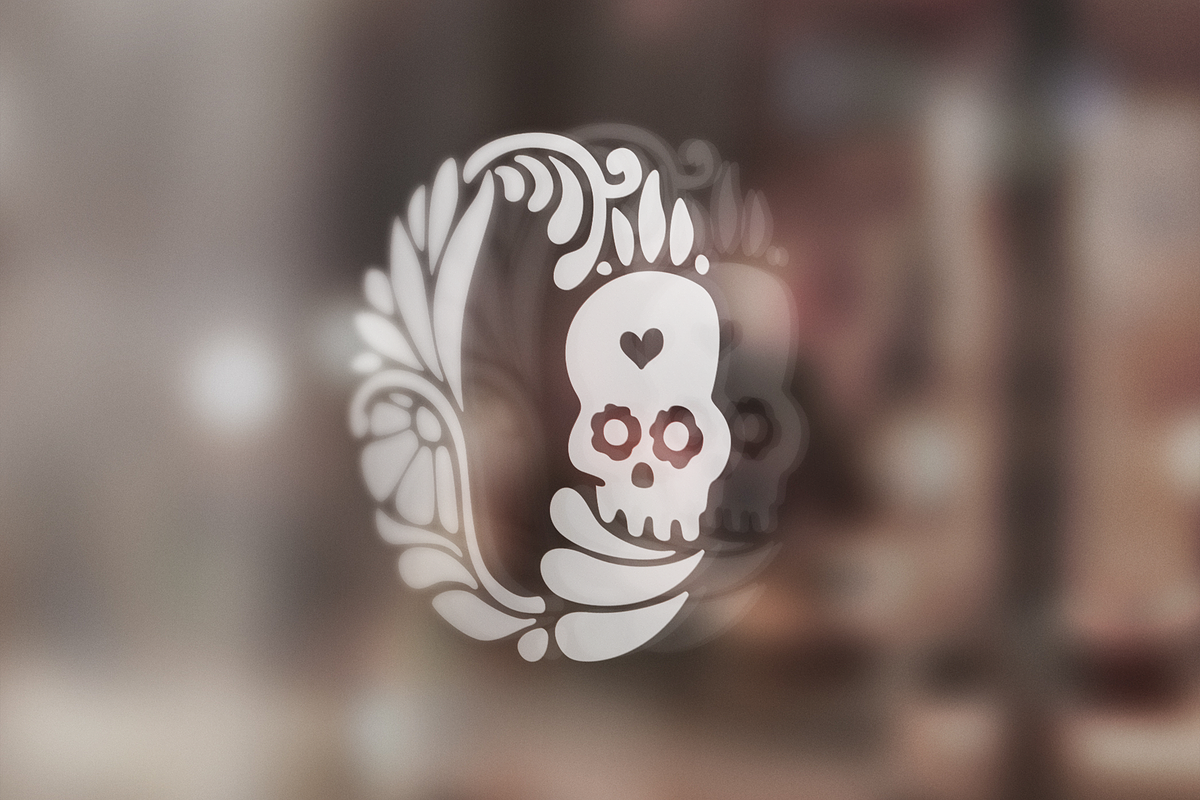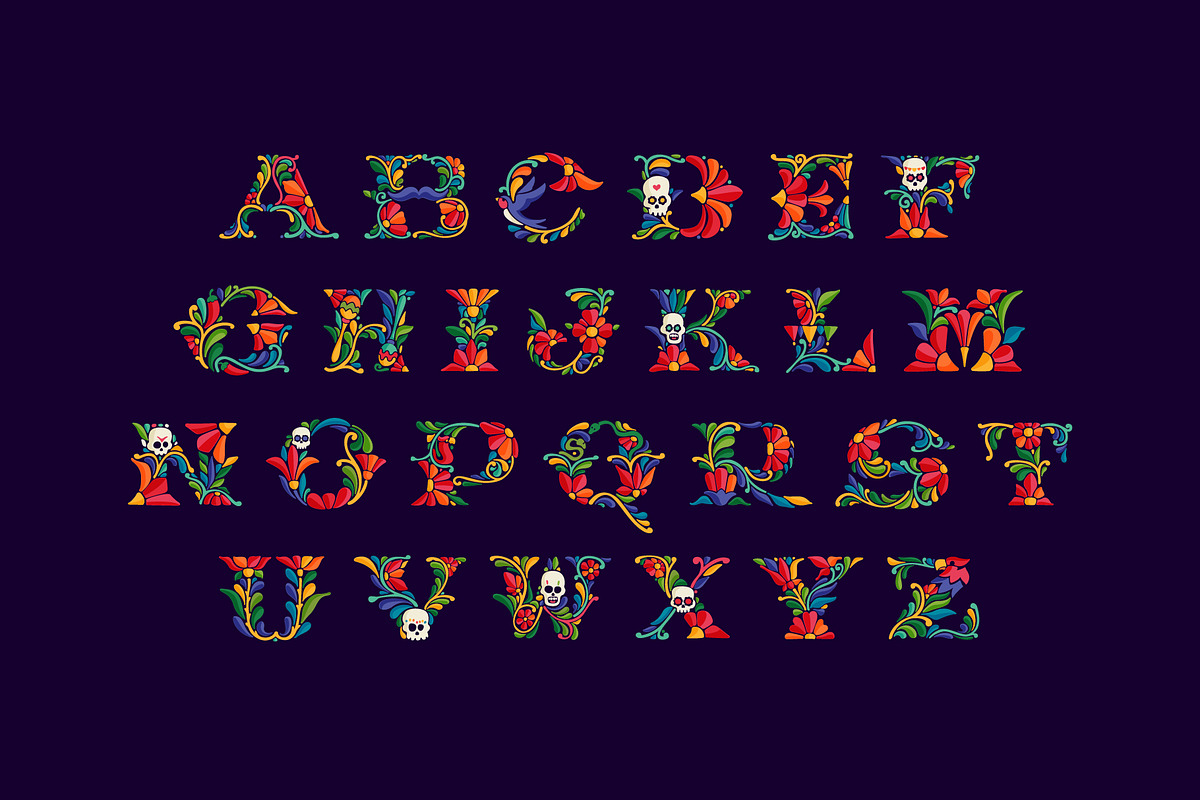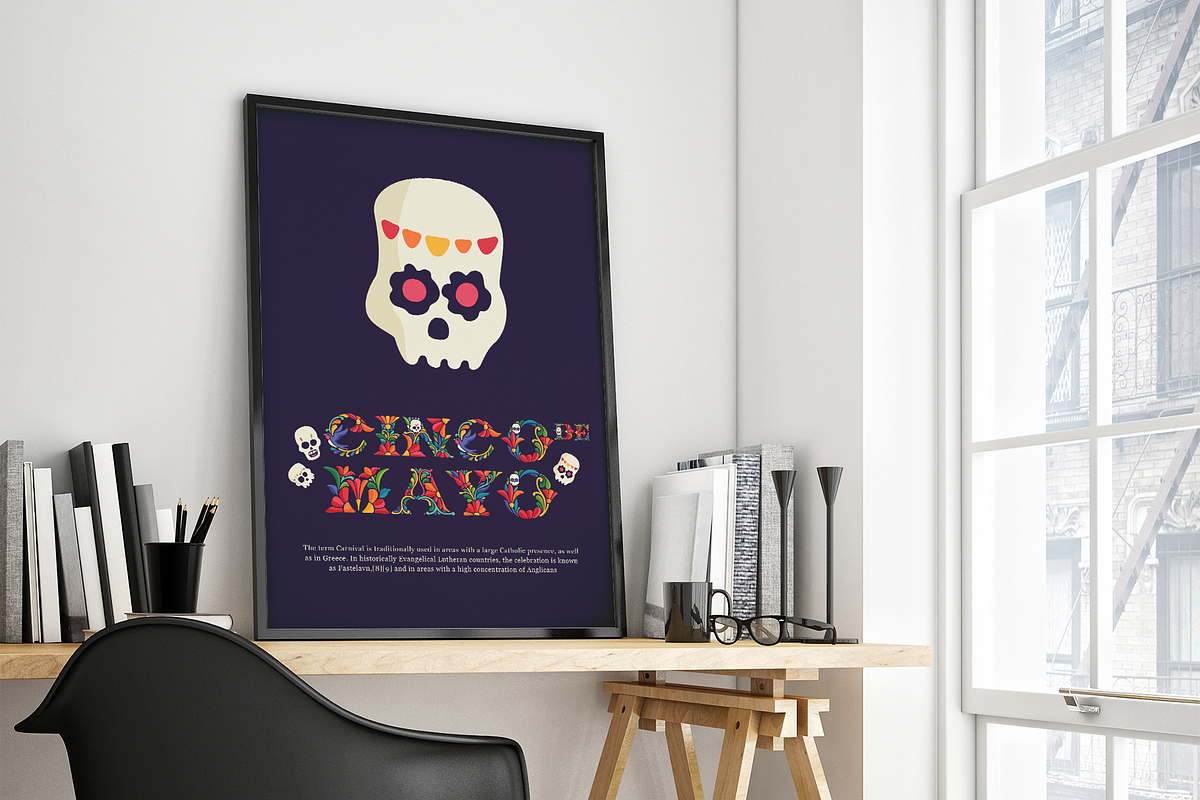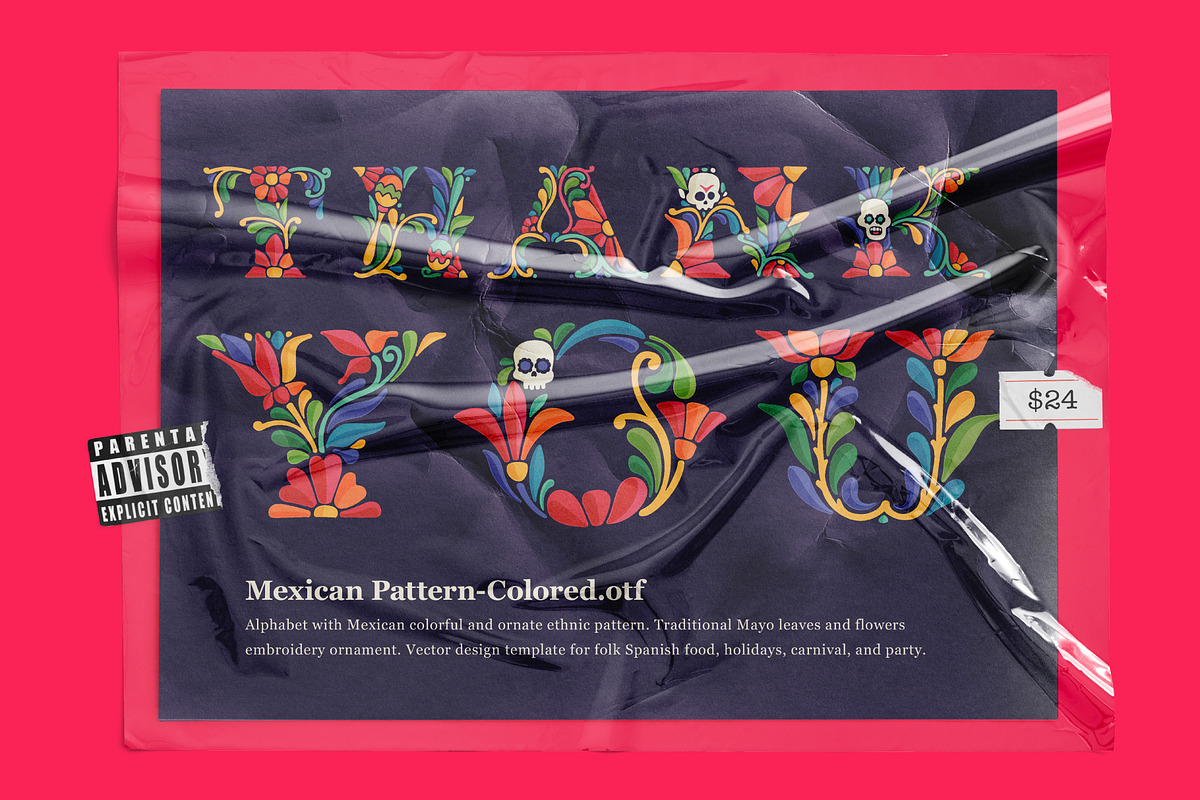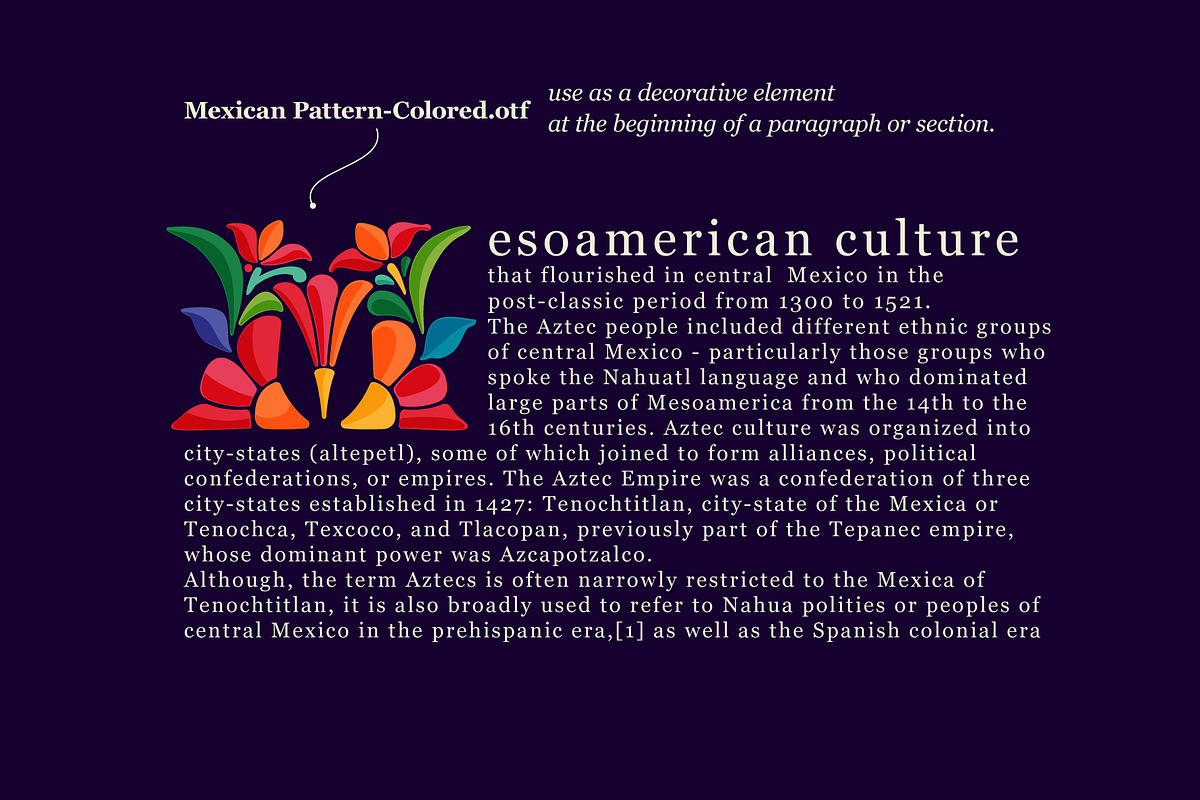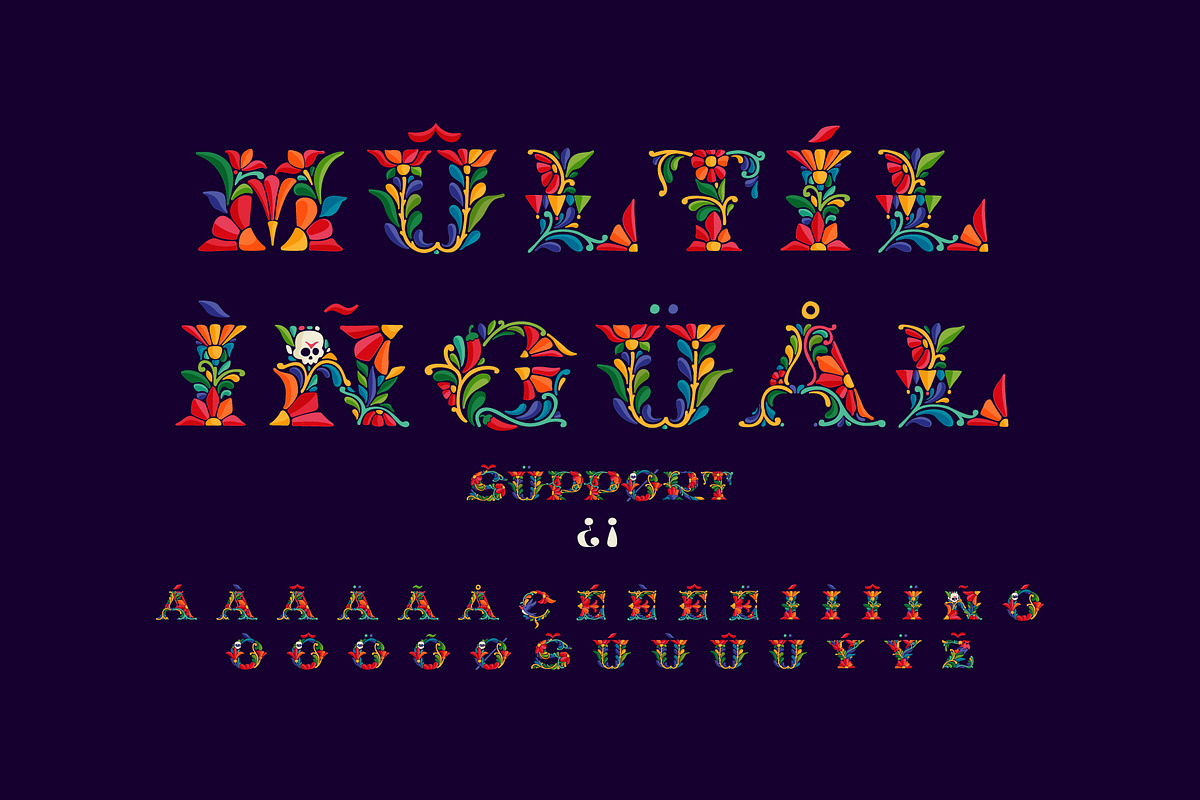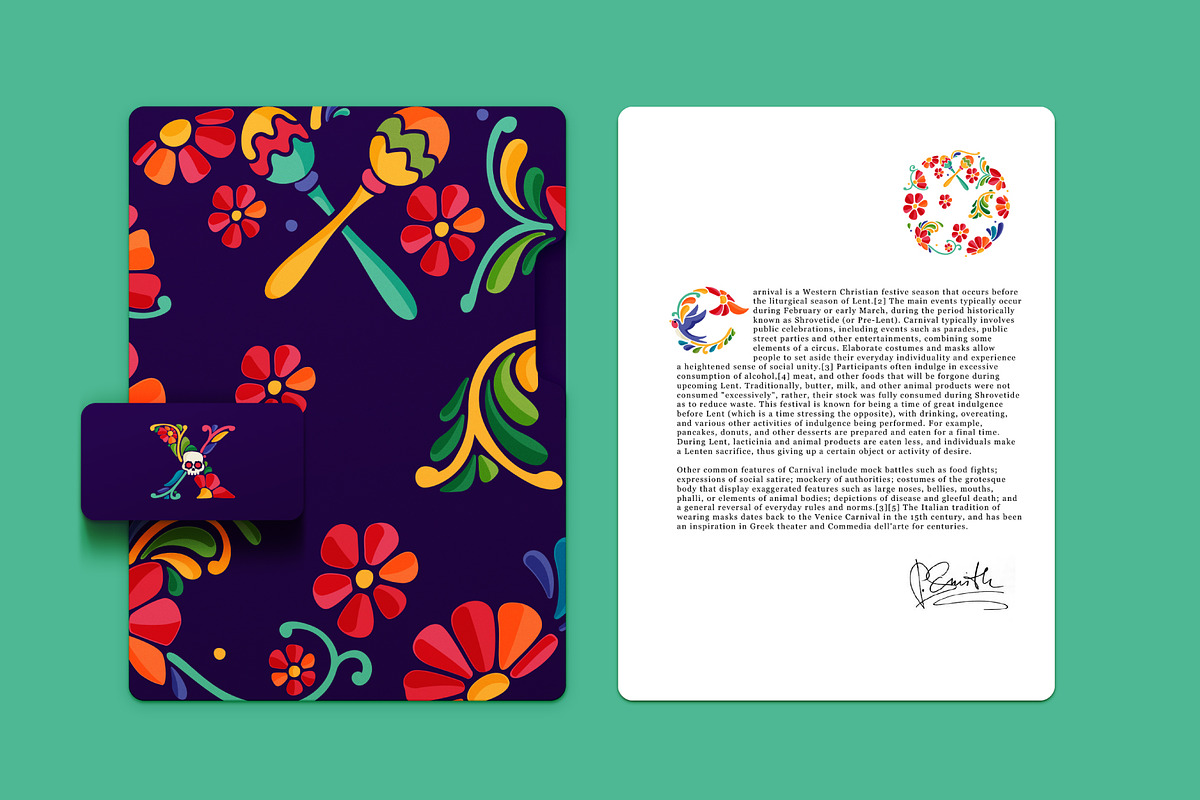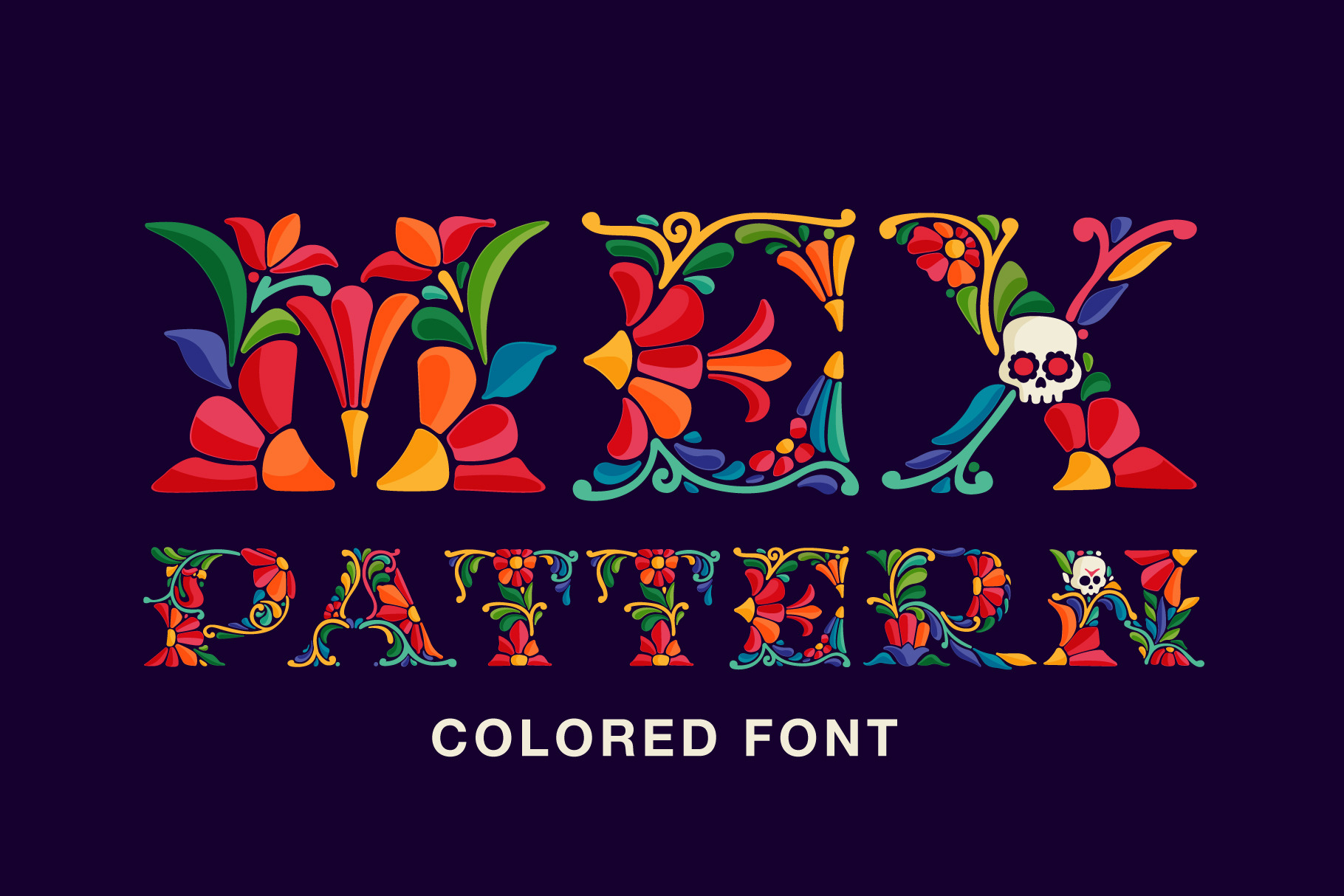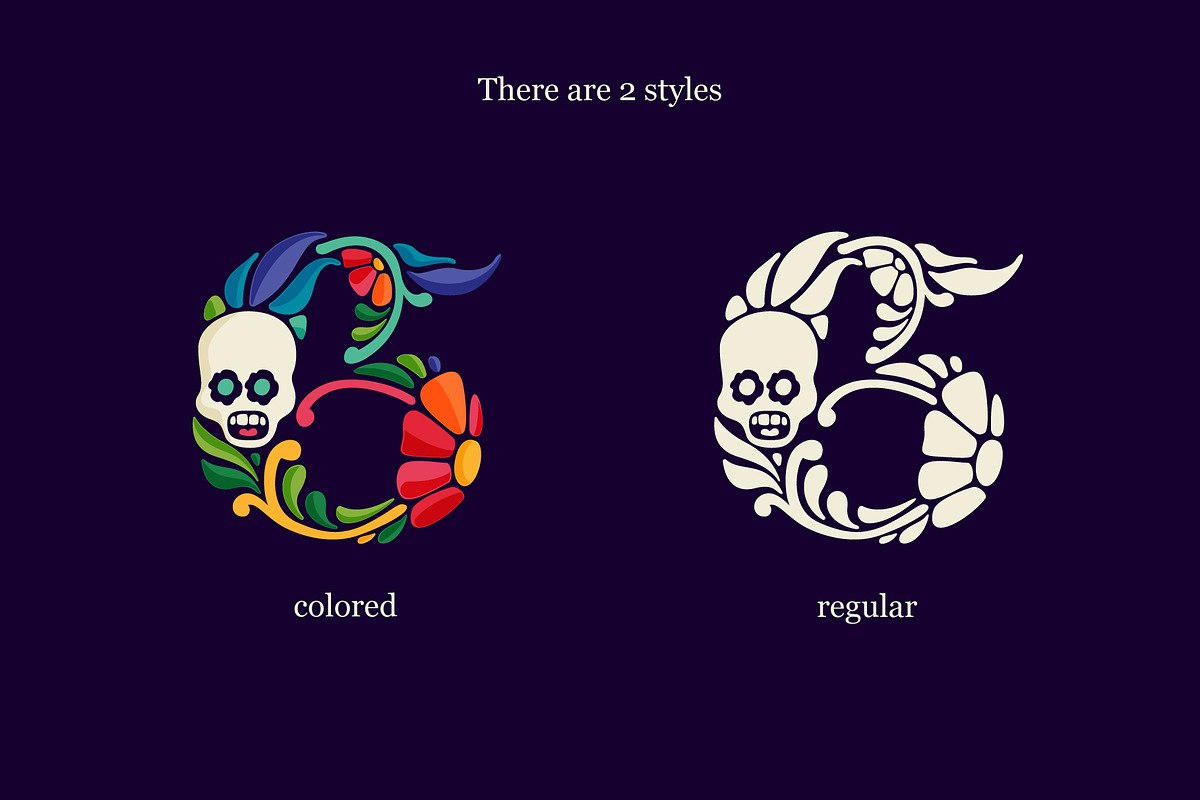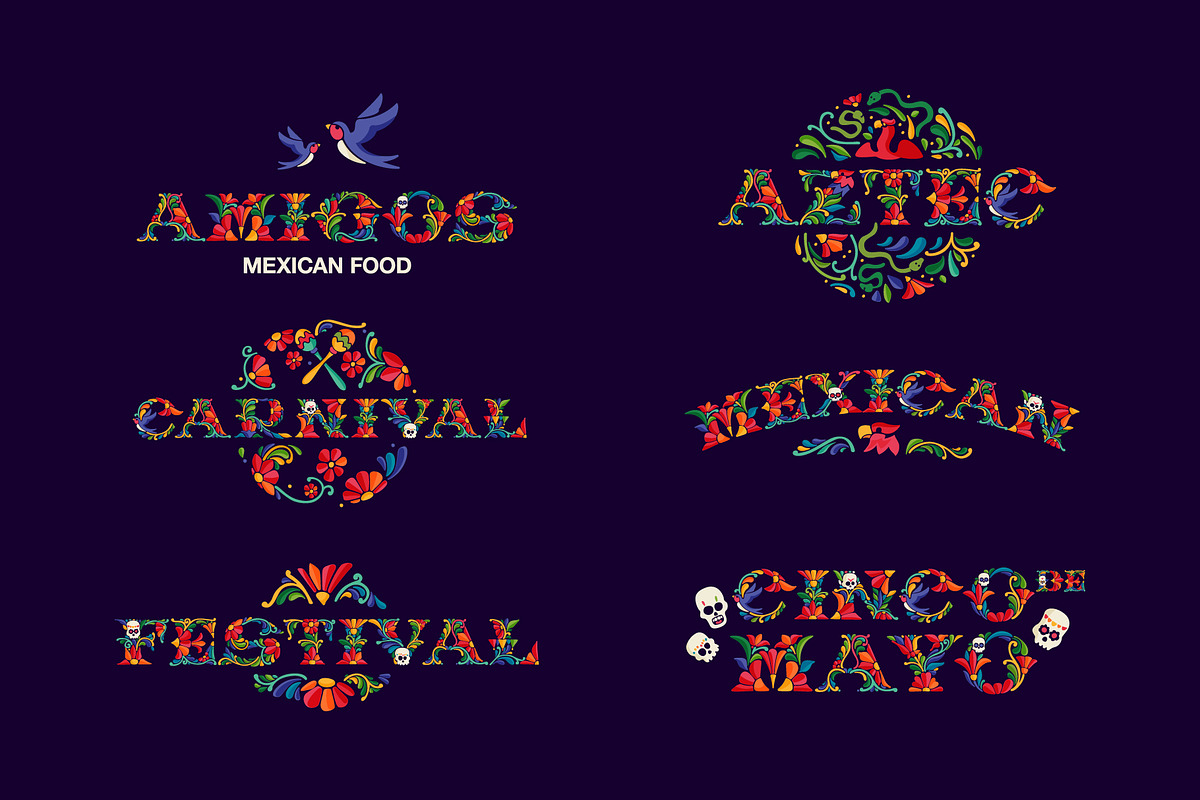
Mexican Pattern Colored font
Mexican Pattern is my vision of classic Mexican style with colorful and ornate pattern.
Mexican patterns appeared as a result of the fusion of two cultures. Aztec and Mayan heritage mingled with Spanish traditions in bright colors.
All painted in bright, rich colors. The combination is necessarily high contrast. Mexicans easily combine bright blue with terracotta, or orange with green.
Mexican traditional pattern style is famous for drawing skulls. These are national traditions and a special attitude towards life and death among the Mexicans.
- Colored and regular B&W styles
- Multilanguage support
- Bonus banners templates